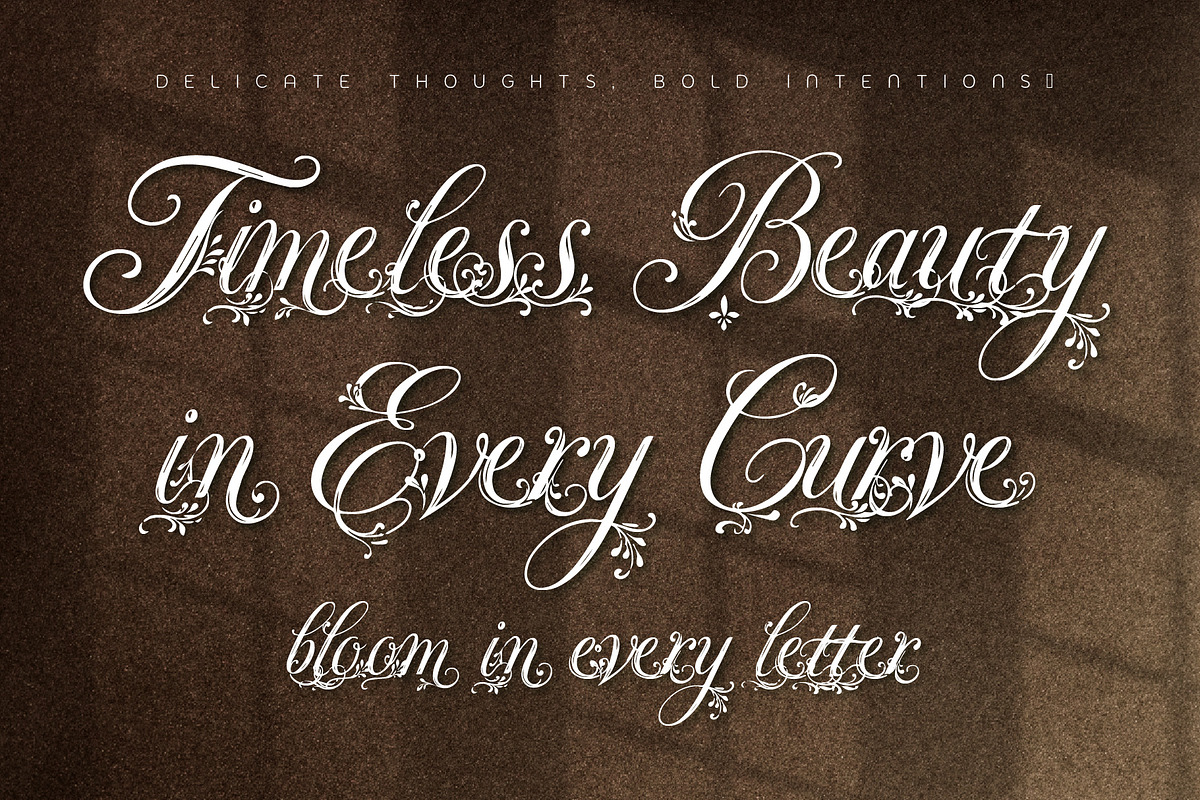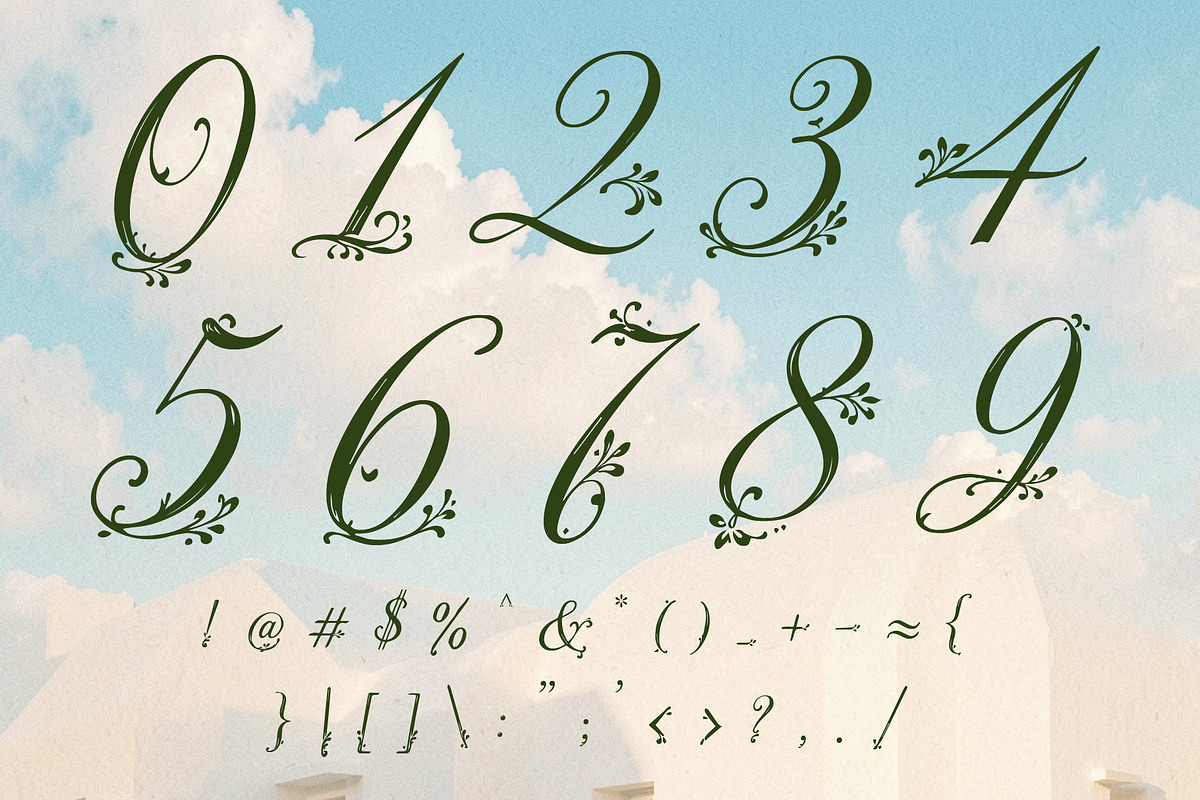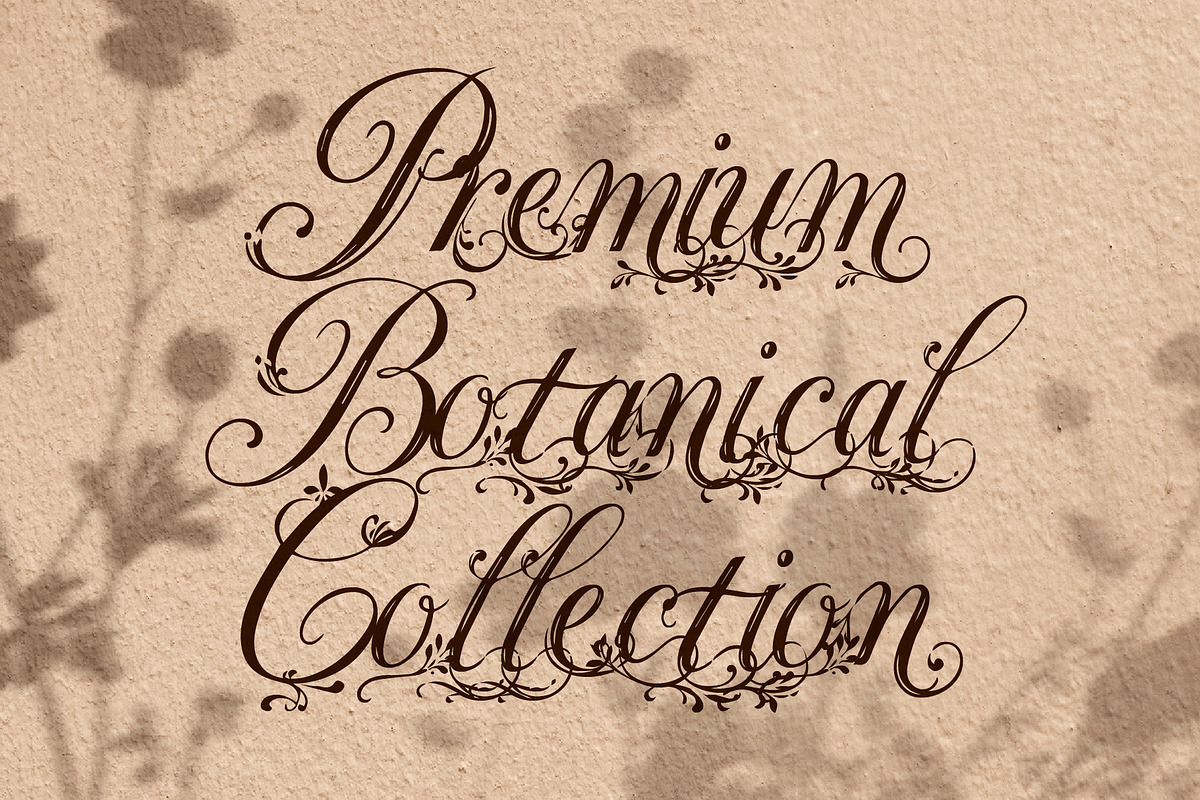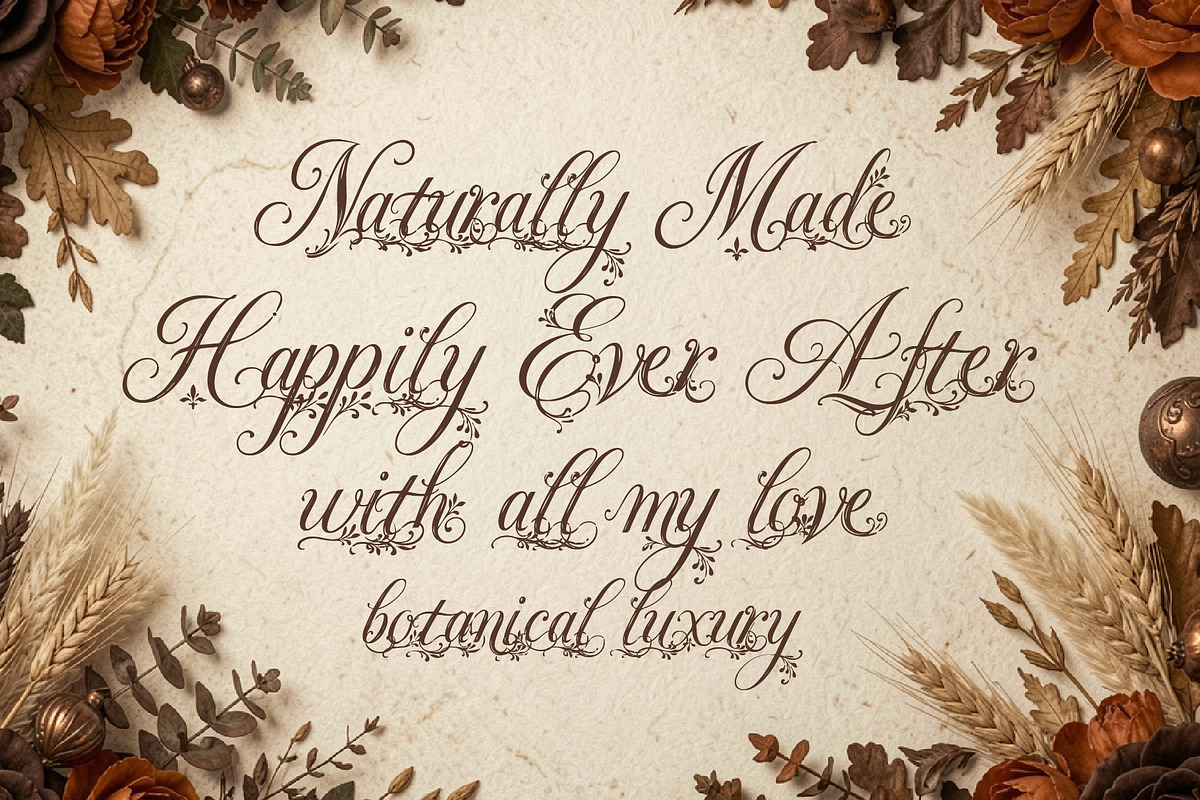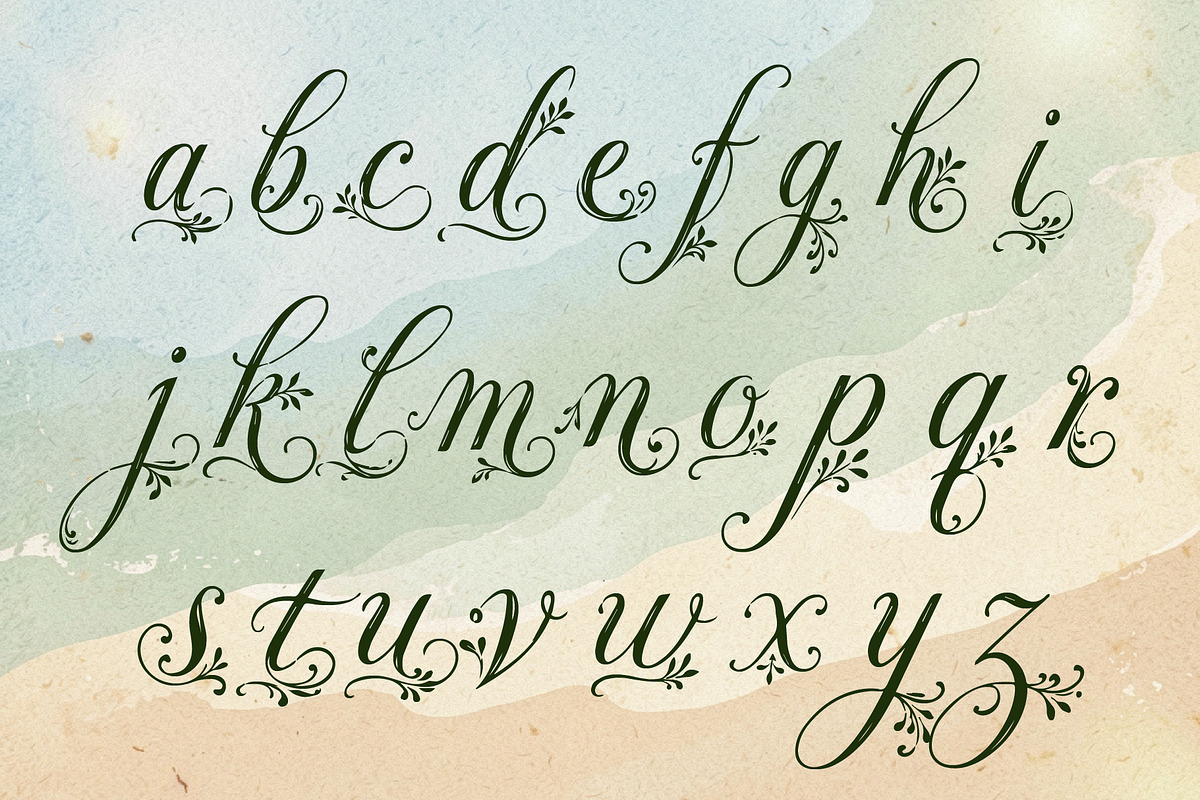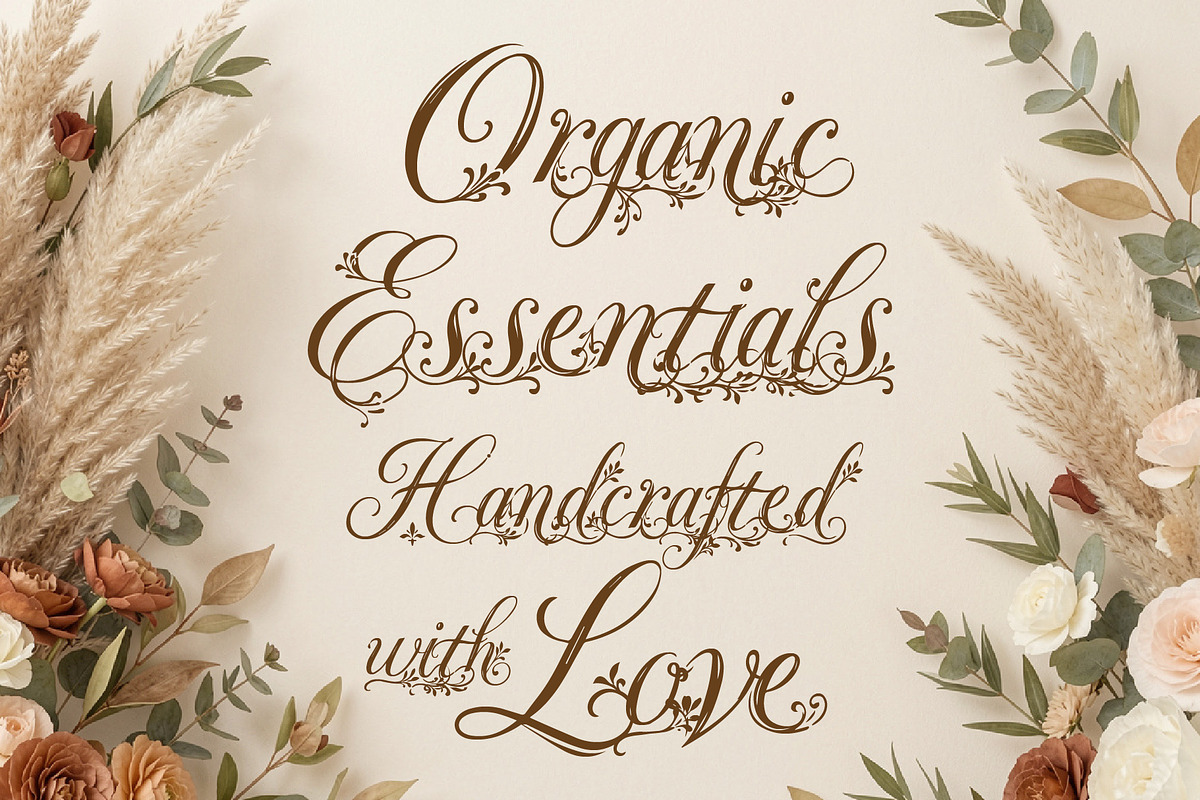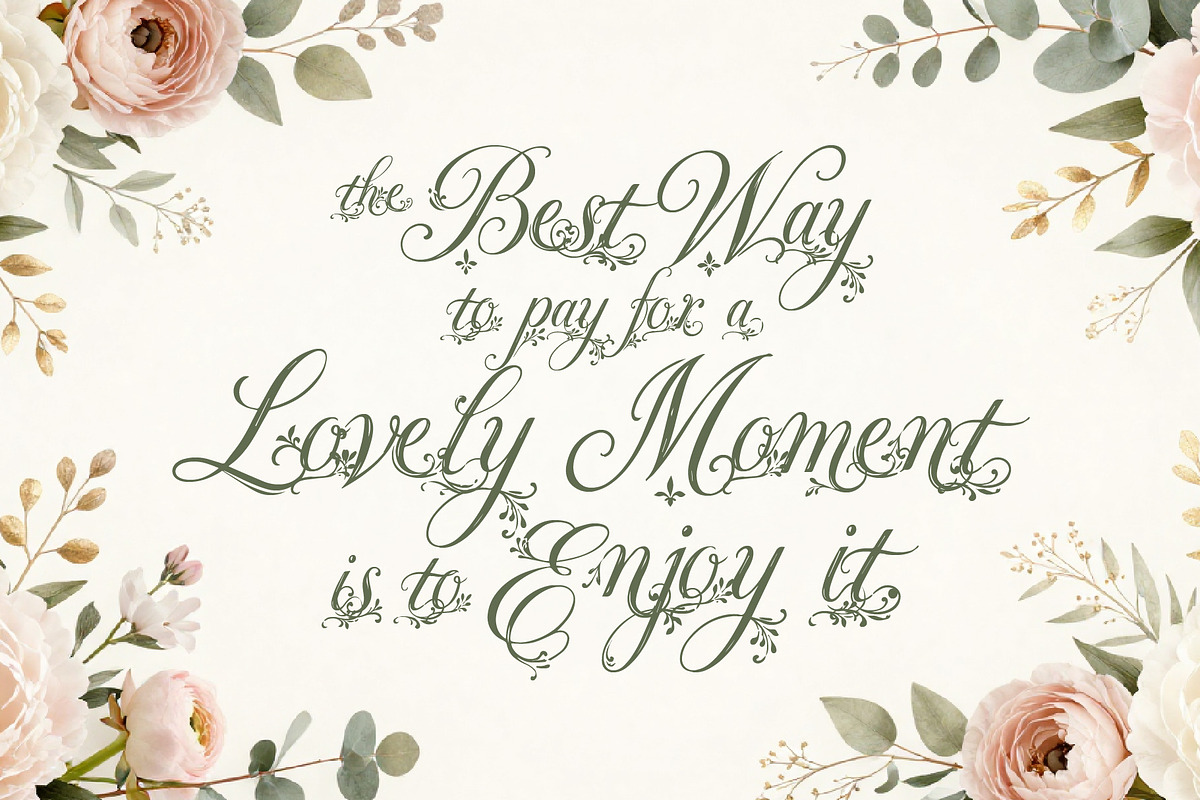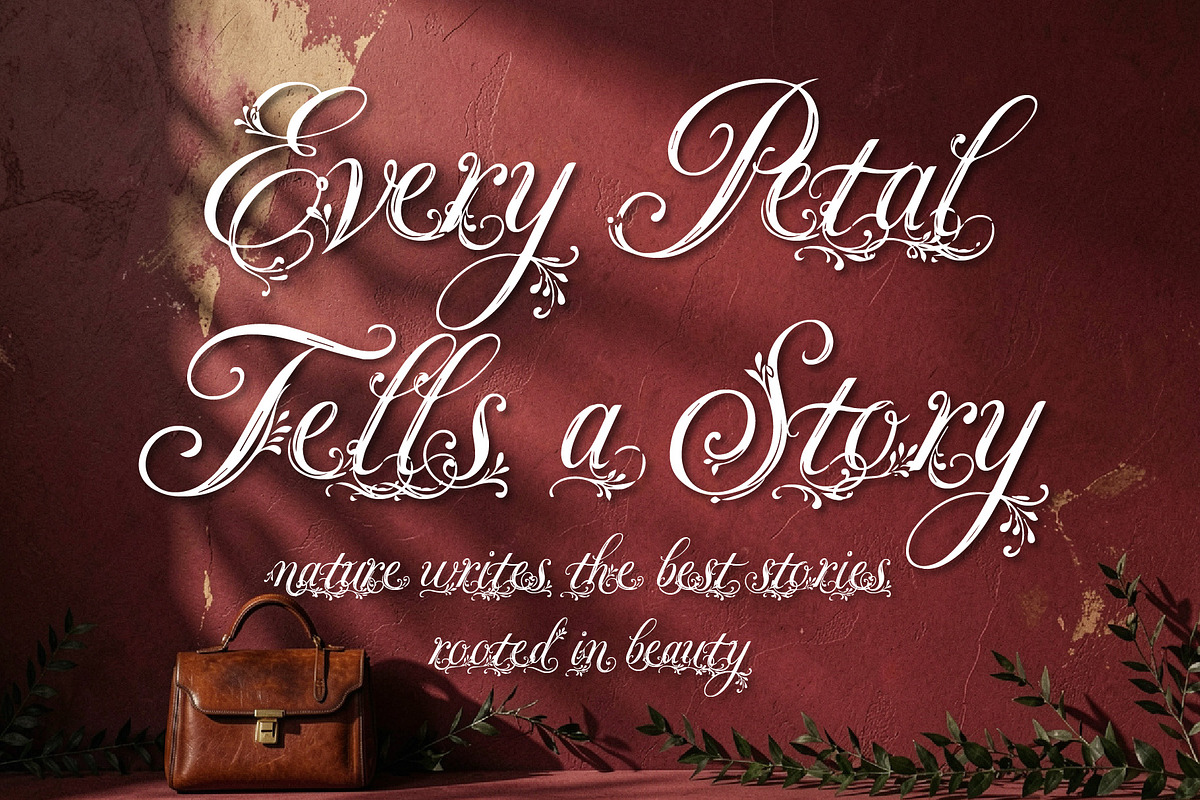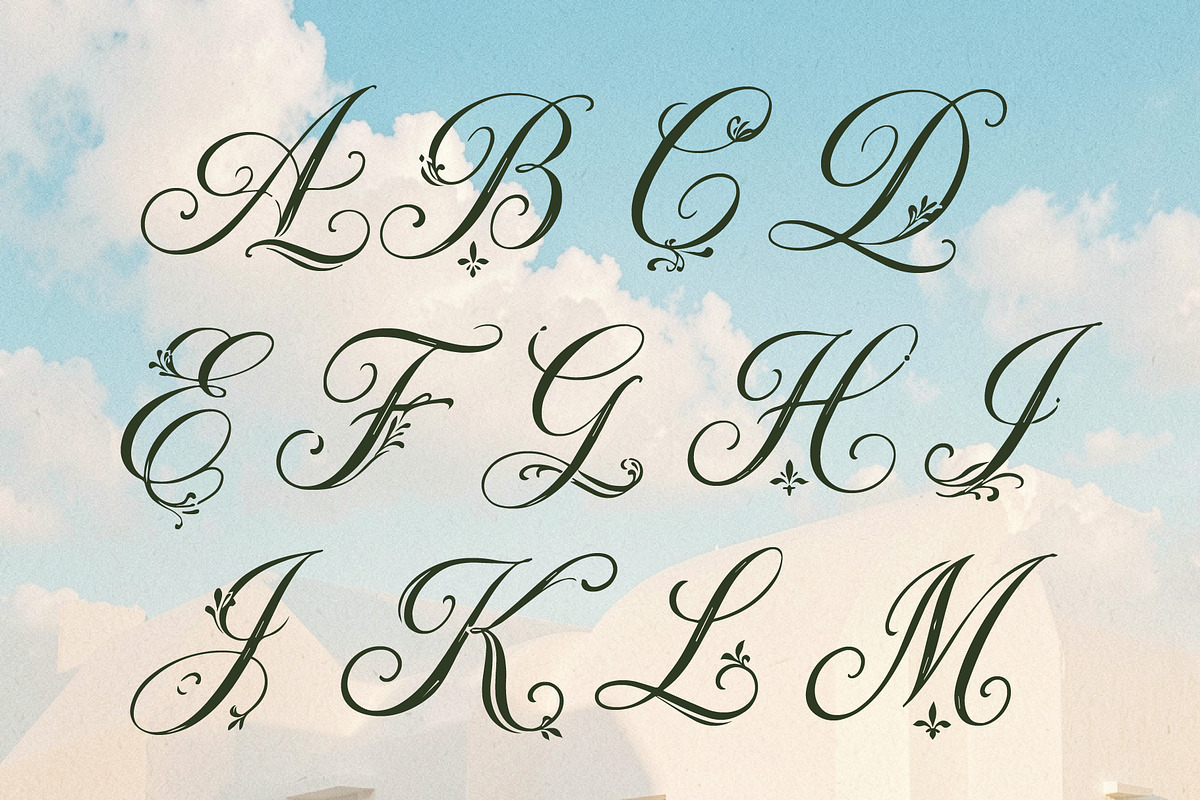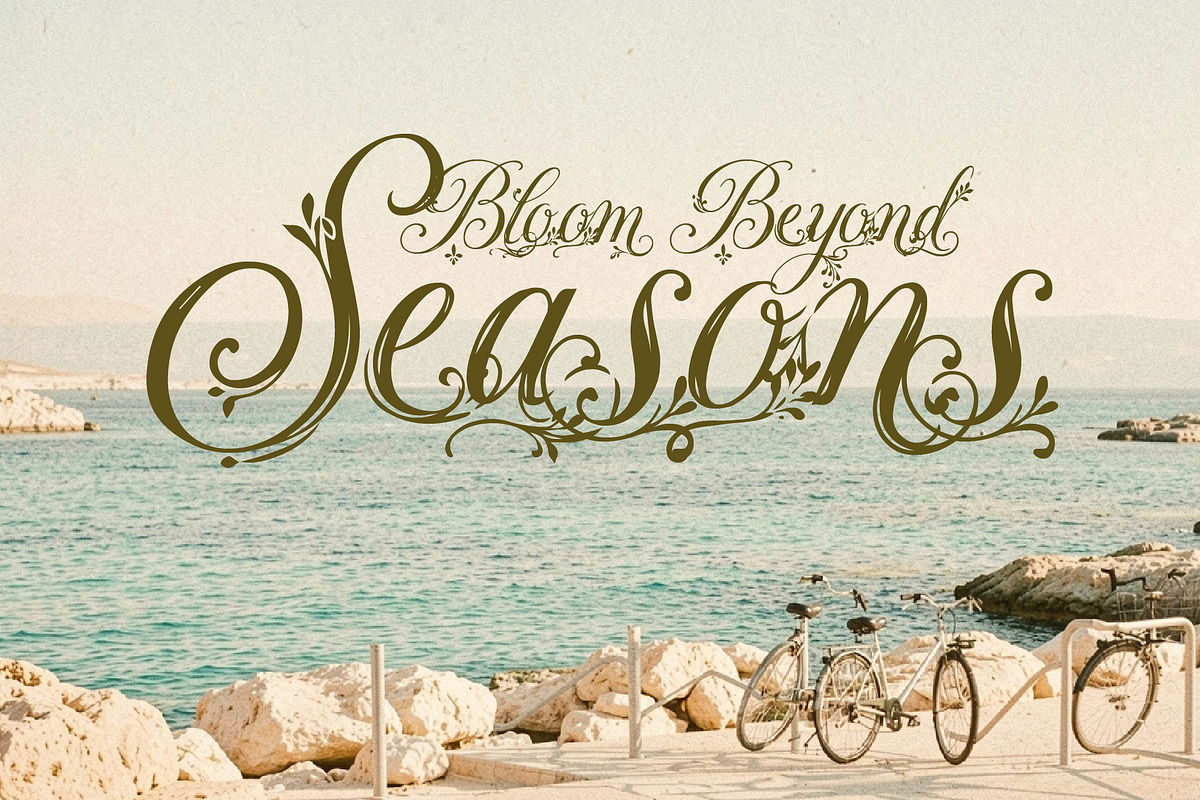
Ornavelle - Bloom Beautifully
Ornavelle Script is a graceful hand-drawn script font adorned with delicate floral ornaments that bring elegance to every letter. Designed with flowing strokes, organic curves, and subtle botanical details, it creates a romantic, feminine, and luxurious impression while maintaining excellent readability.
Perfect for beauty brands, skincare packaging, wedding invitations, boutique logos, cosmetic labels, perfume branding, greeting cards, social media, product packaging, magazines, photography, and premium lifestyle projects. Whether you're designing for modern romance or timeless sophistication, Ornavelle Script adds handcrafted charm and floral elegance to every design.